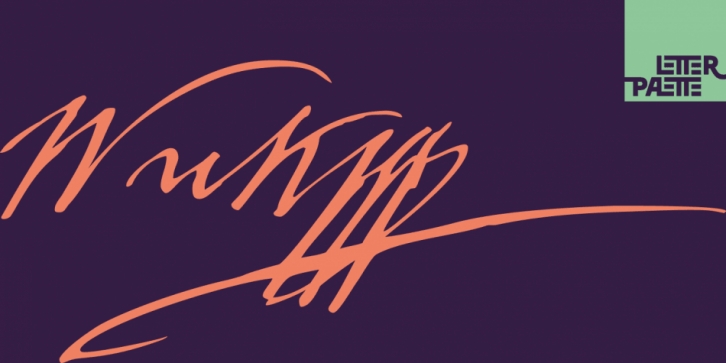
Publisher: LetterPalette
Designed by Vedran Eraković, Vuk is a script font published by LetterPalette.
Vuk Stefanovic Karadzic was a Serbian philologist and linguist who was the major reformer of the Serbian language. In addition to his linguistic reforms, Karadzic also contributed to folk literature, using peasant culture as the foundation. Because of his peasant upbringing, he was closely associated with the oral literature of the peasants, compiling it to use in his collection of folk songs, tales, and proverbs. He was well known abroad and familiar to Jacob Grimm, Johann Wolfgang von Goethe and historian Leopold von Ranke.
This typeface, based on his manuscripts, presents the perfect balance between casual handwriting and careful calligraphy.
Thoroughly created by Vedran Erakovic and Marija Rnjak, it contains a comprehensive set of upper and lower case letter alternates. Thanks to some OpenType features, such as contextual alternates, this typeface approaches handwritten text as closely as possible.
It is ideal for designing greeting cards, quotes, packaging, invitations, fashion layouts and much more.